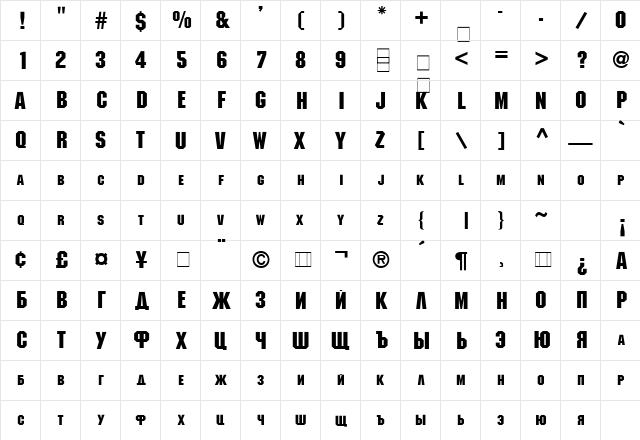
Machine Regular
Design Context for Machine Typeface
Machine offers clean, dependable letterforms without strong stylistic allegiance, making it a practical choice for designers who need flexibility.